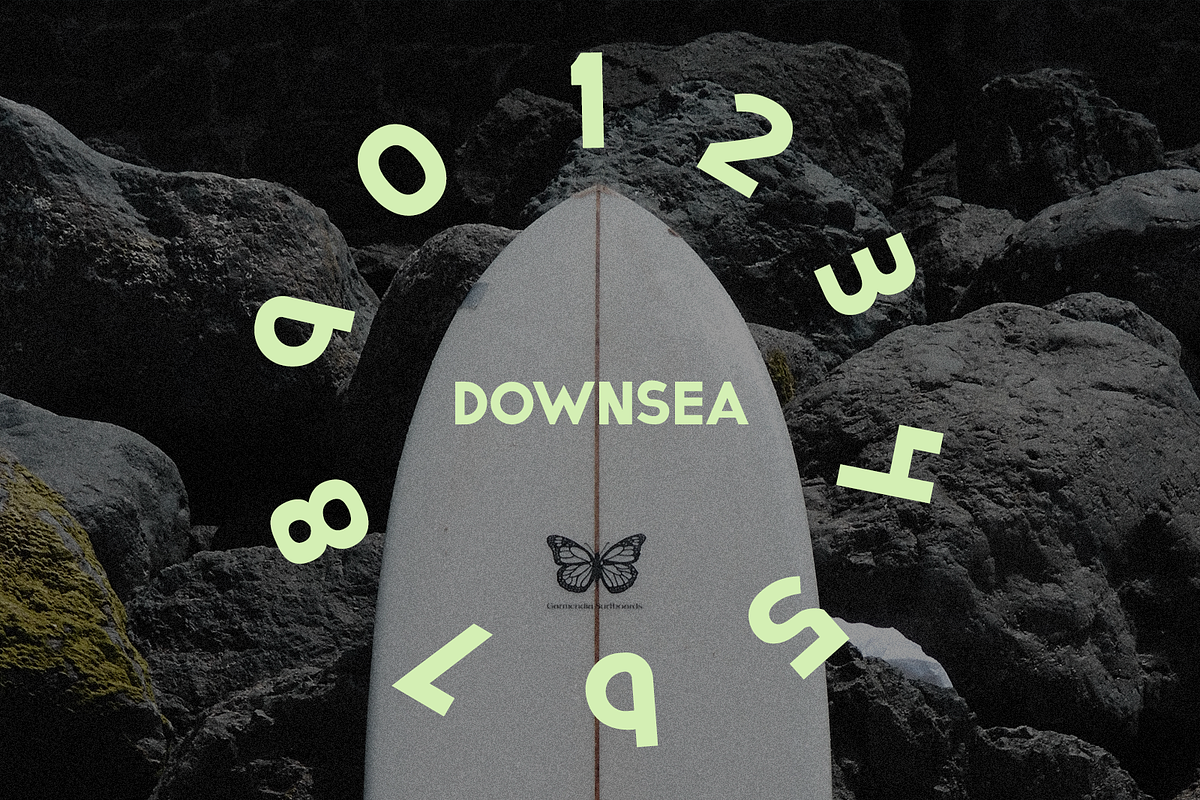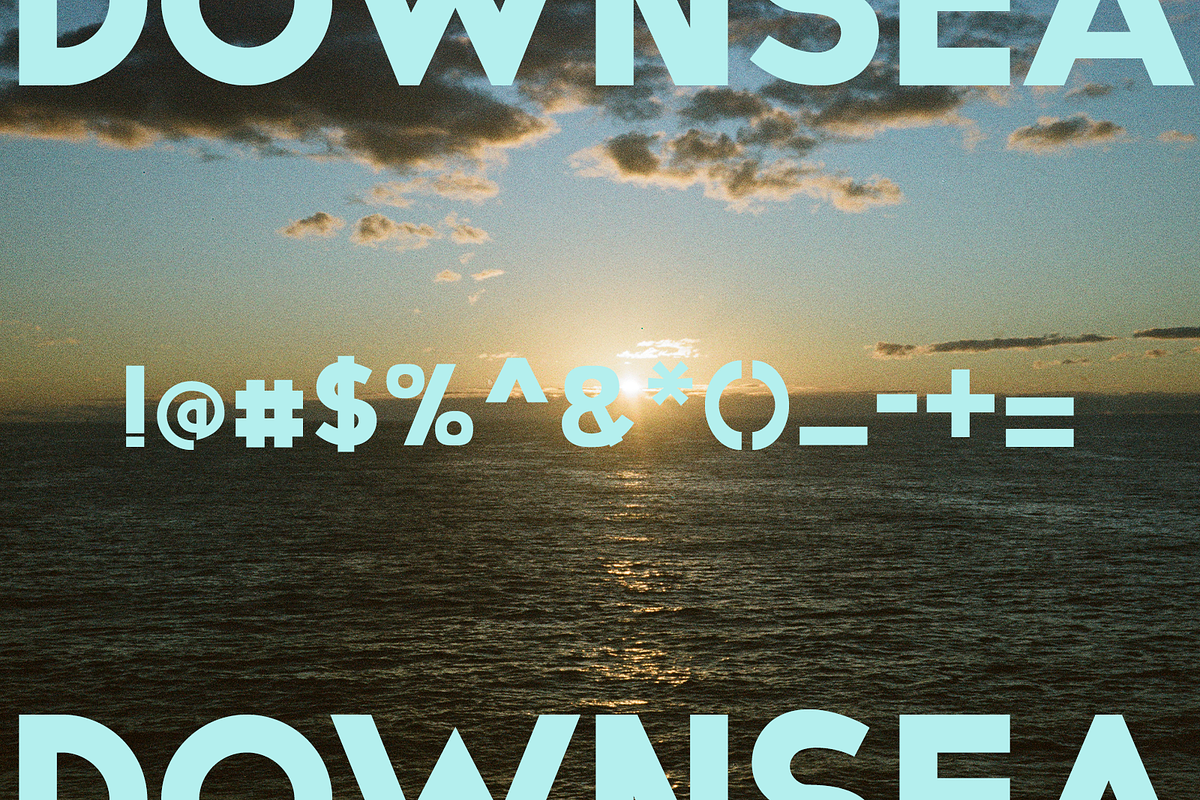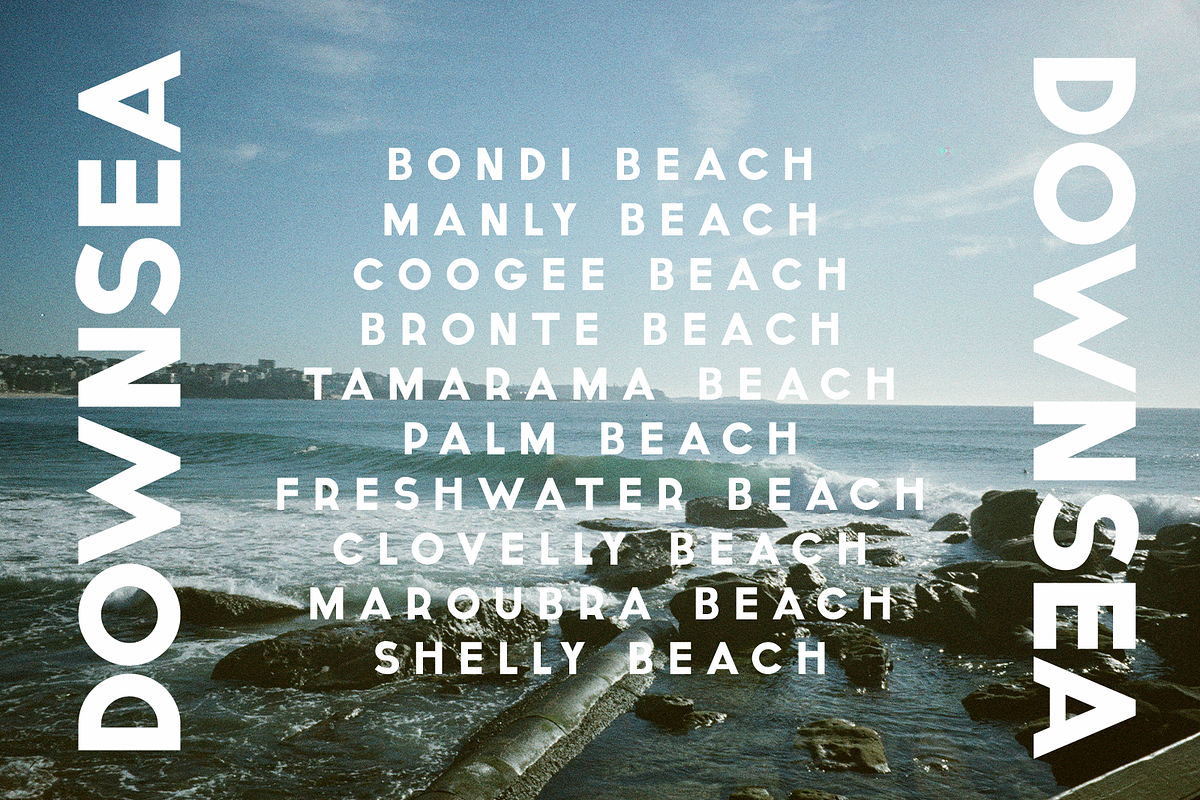
DownSea: Hand-Shaped Surf Font
DownSea is a bold, all-caps display typeface built for brands and projects that live near the water. Inspired by hand-shaped surfboards and coastal type traditions, every letterform has a slightly organic, hand-finished edge, confident enough for a headline, loose enough to feel human.
DownSea Display
Full uppercase character set, numerals 0–9, and complete punctuation
Built-in kerning for clean spacing at any size
Note: DownSea is an all-caps display font — lowercase keys will output uppercase letterforms, and the font does not include accented/diacritic characters.